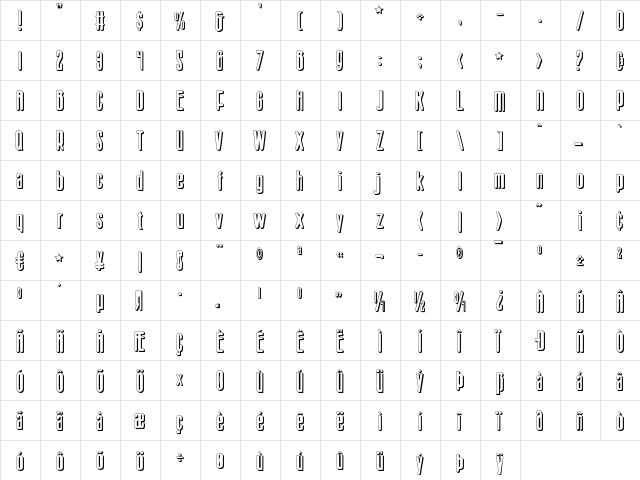
Sister Europe Shadow Shadow
Sister Europe Shadow brings ornamental detail and strong personality to headlines and identities, where visual impact matters more than quiet functionality.
Font Pairing: Pair with a clean neutral sans-serif for body copy to let Sister Europe Shadow's character lead without overwhelming the composition.
Pro Tip: Use Sister Europe Shadow exclusively at display sizes — it was designed to be seen, not read at length. Let a neutral companion handle body copy.